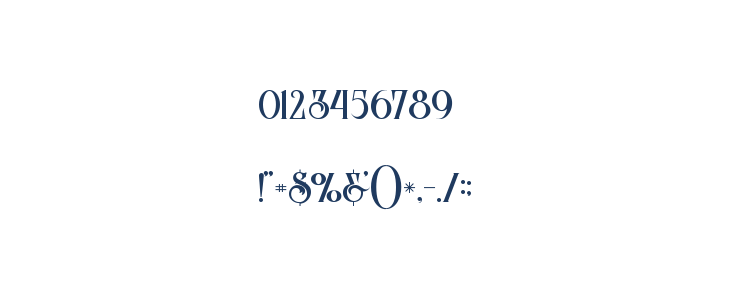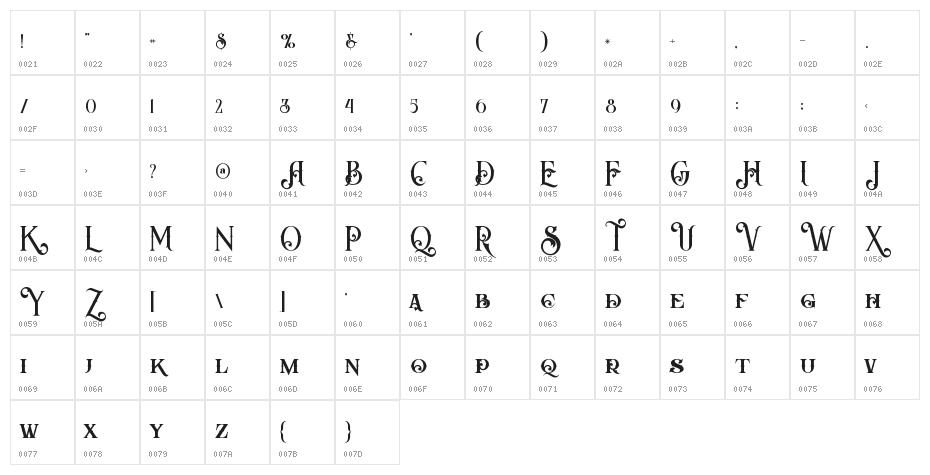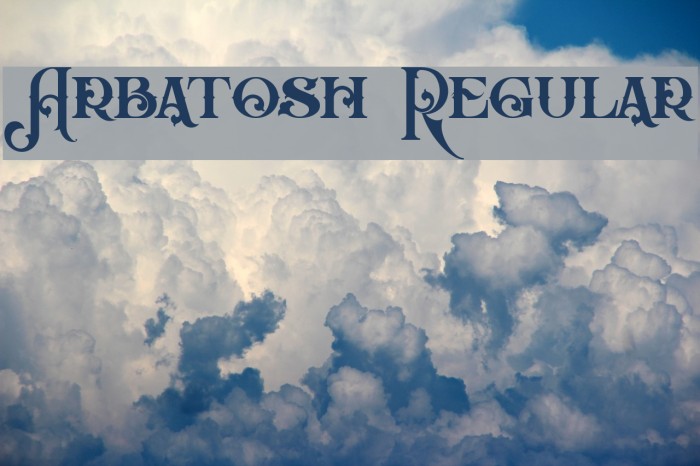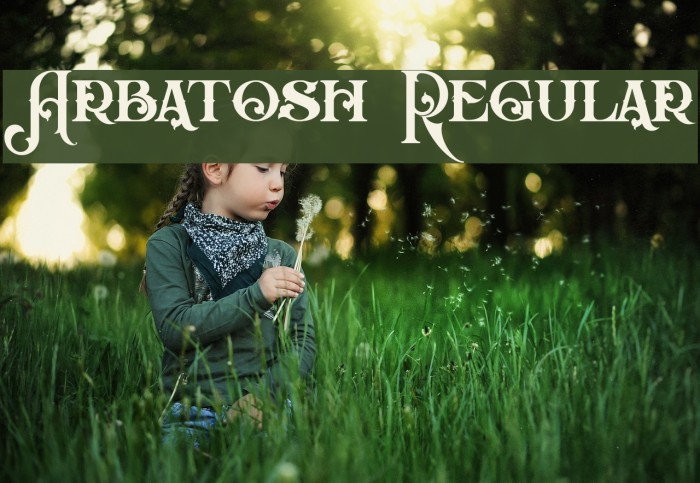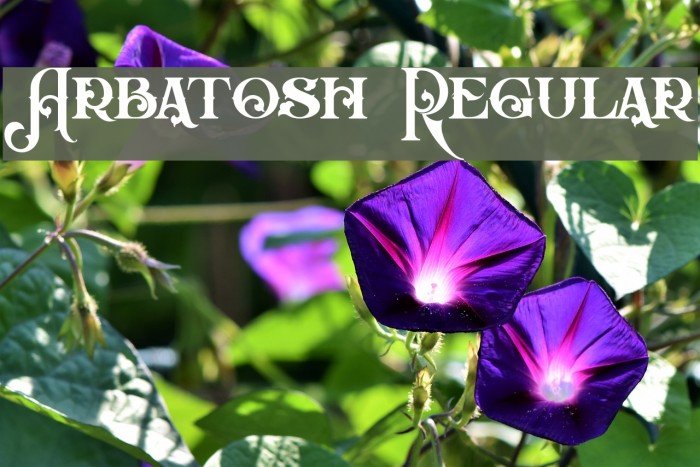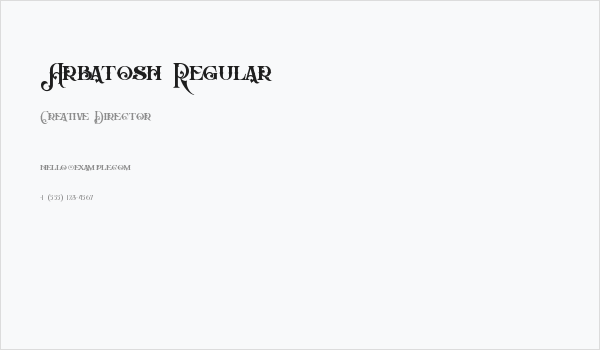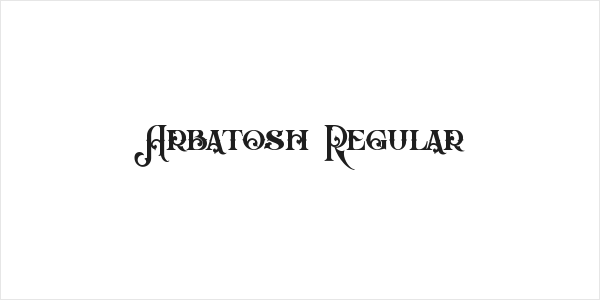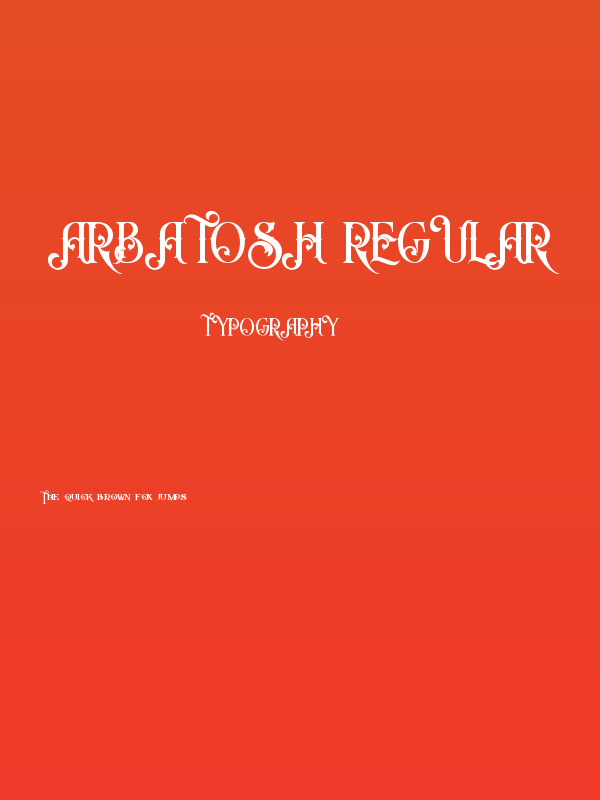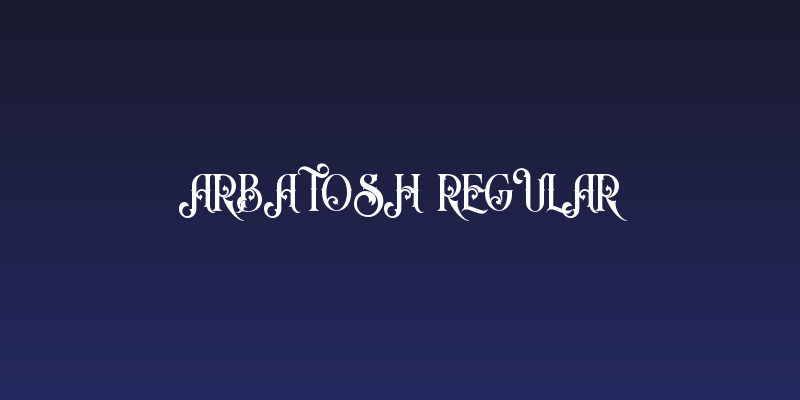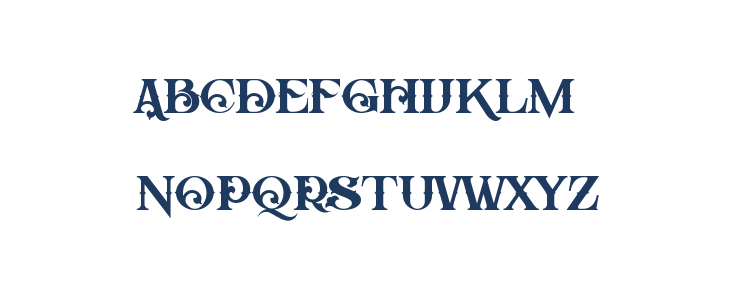
Arbatosh Regular Font
Arbatosh Regular Description
This font features an ornate and decorative style, characterized by intricate swirls and embellishments on each letter. The uppercase letters are particularly elaborate, with flourishes that extend beyond the basic letterforms, giving it a regal and sophisticated appearance. The lowercase letters maintain a similar decorative quality, though slightly more restrained. The numerals are bold and consistent with the overall ornate theme, while the special characters are uniquely styled to match the font's aesthetic. This font is ideal for projects that require a touch of elegance and grandeur.
| Use Case | Headlines, Logos, Invitations |
| Proposed Projects | Ideal for wedding invitations, luxury branding, high-end packaging, and decorative headlines. |